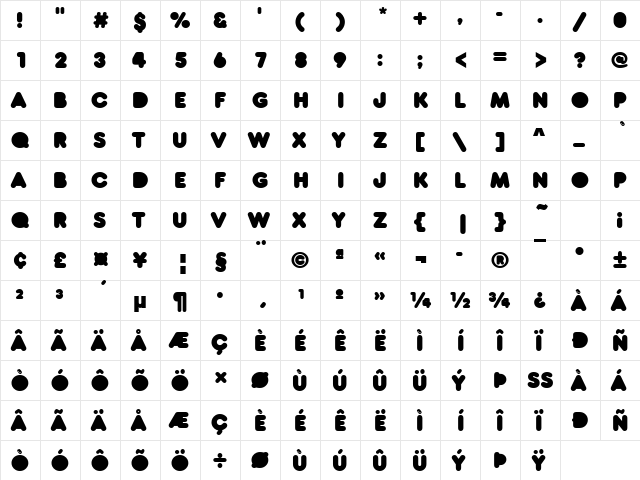
RNS BARUTA BLACK Regular Font Preview
RNS BARUTA BLACK Regular
Design Context for RNS BARUTA BLACK Typeface
RNS BARUTA BLACK offers clean, dependable letterforms without strong stylistic allegiance, making it a practical choice for designers who need flexibility.
Pro Tip: Use RNS BARUTA BLACK in both headline and body roles to test its range before committing to a single application.